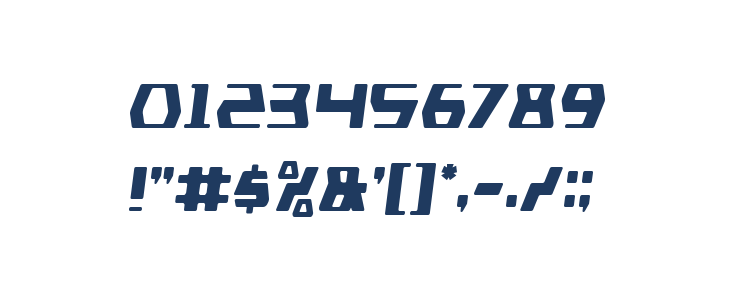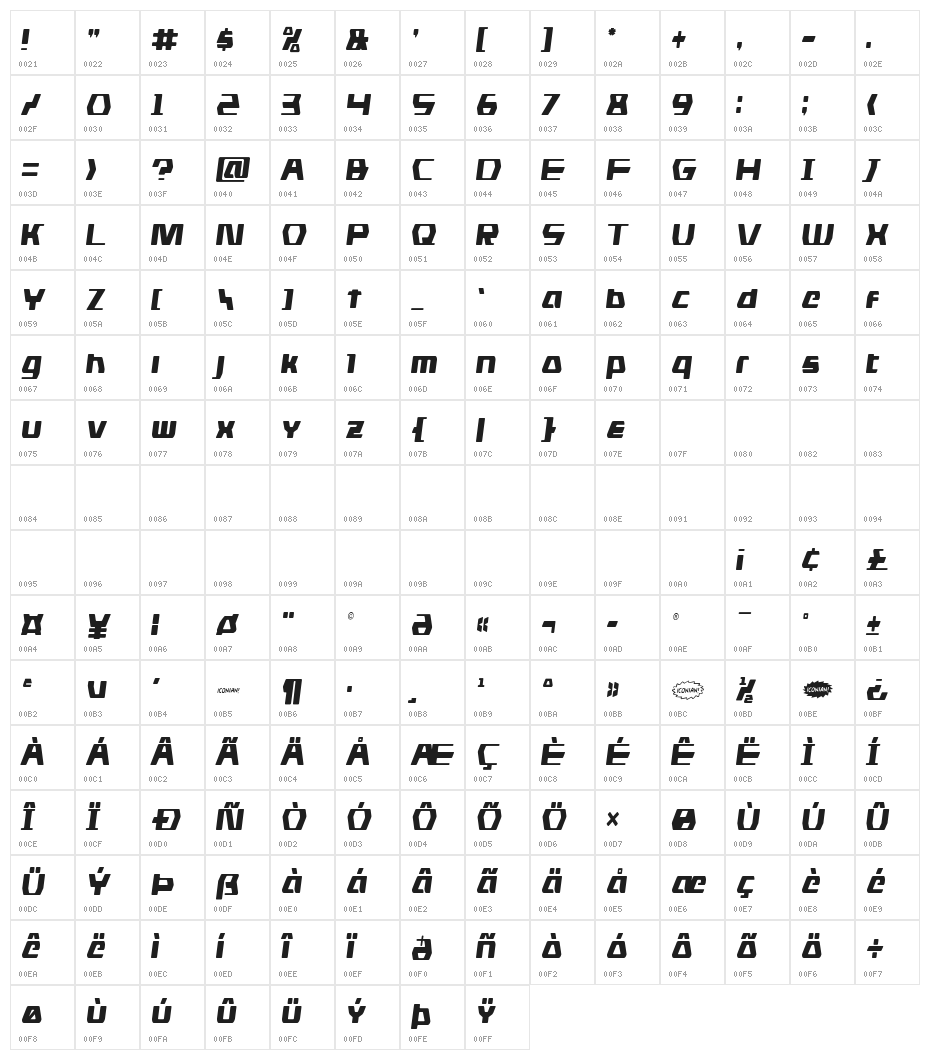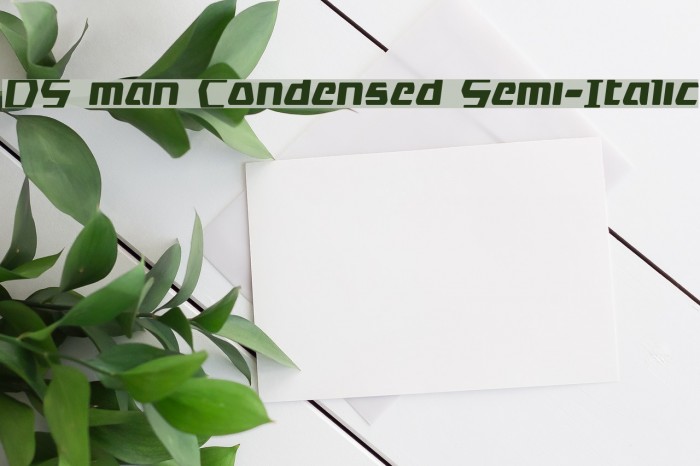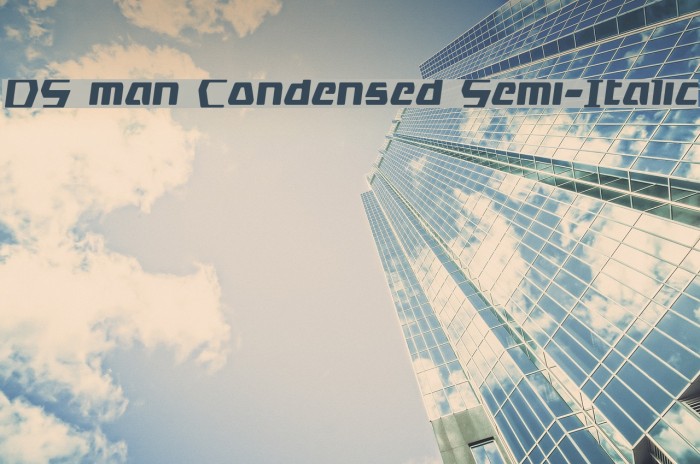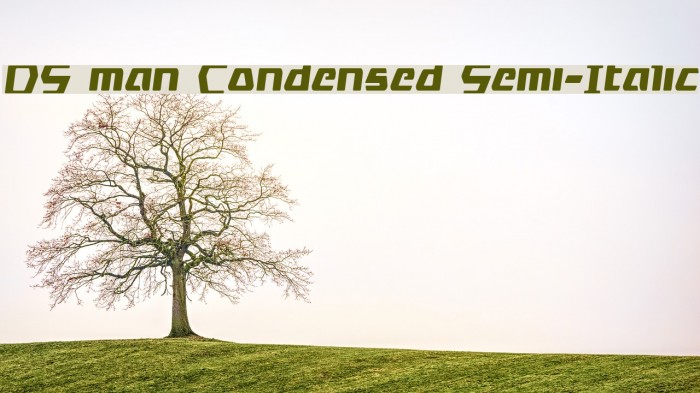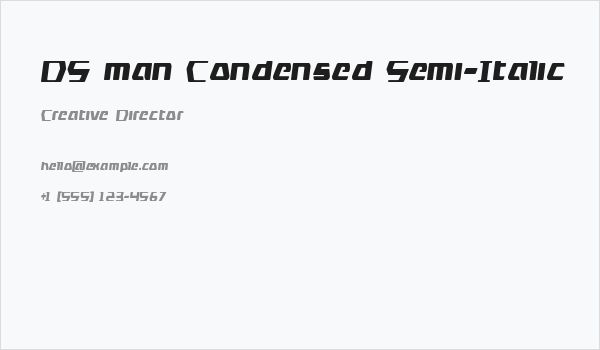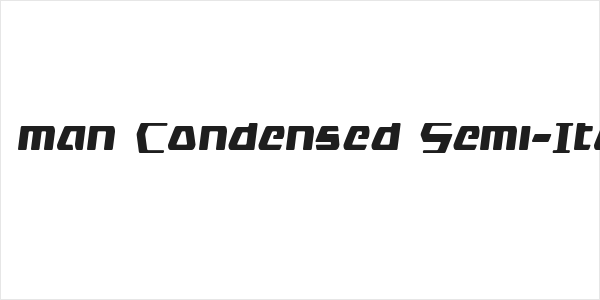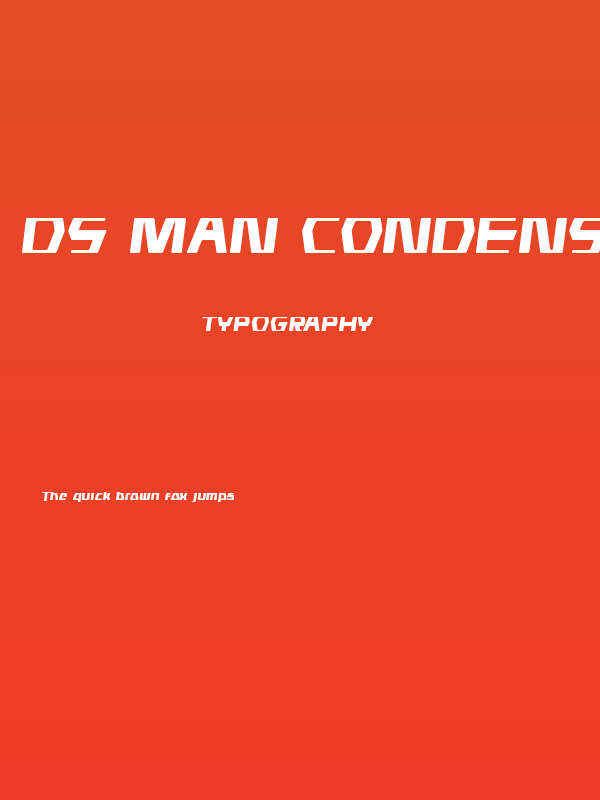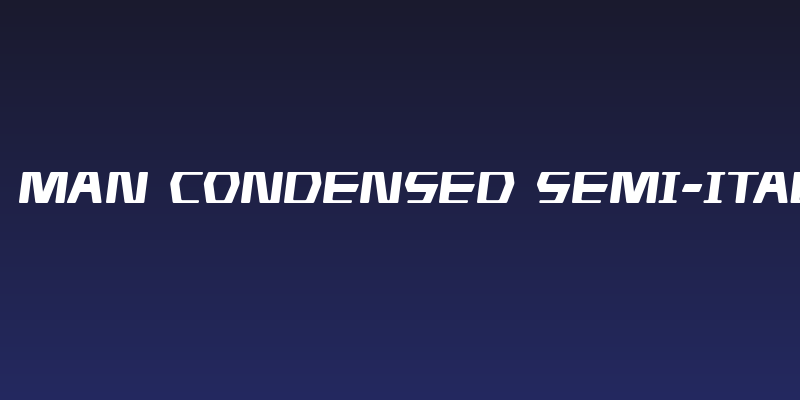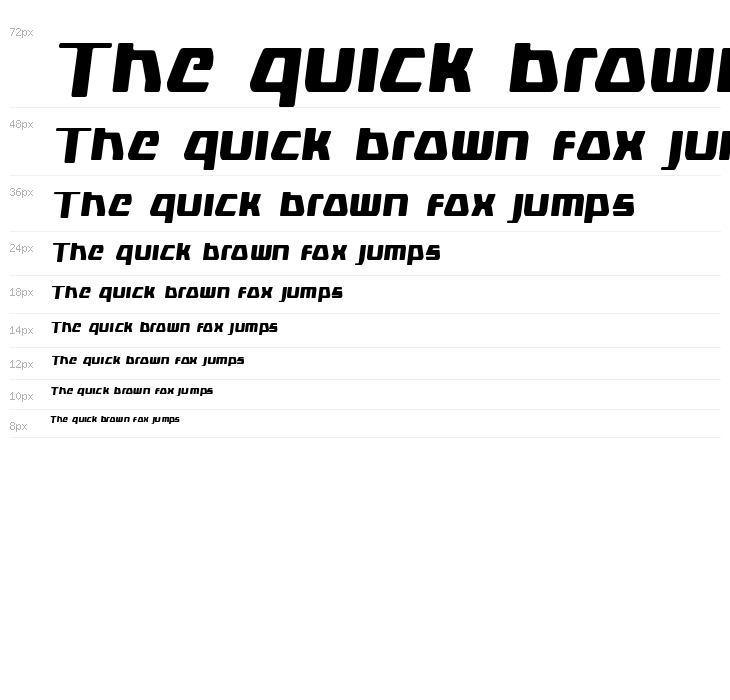
DS man Condensed Semi-Italic Font
DS man Condensed Semi-Italic Description
This font features a bold, semi-italic style with a condensed width, giving it a modern and dynamic appearance. The characters are angular with sharp edges, creating a sense of movement and energy. The uppercase and lowercase letters maintain a consistent style, with a slight slant that adds to the italic effect. The numerals and special characters are designed to match the overall aesthetic, ensuring uniformity across all elements. The font's boldness and condensed form make it ideal for impactful designs where space is limited.